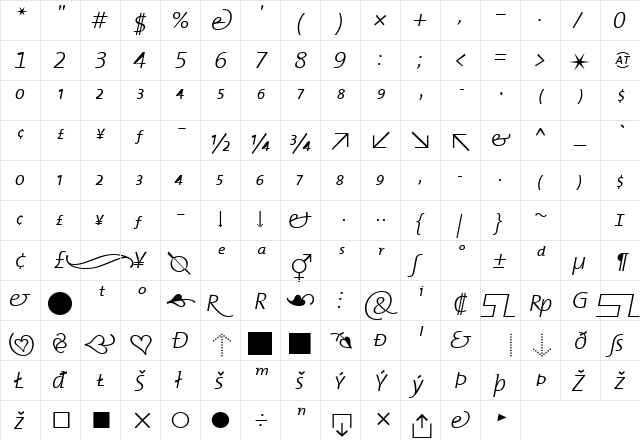
TheMixLight-ExpertItalic Regular Font Preview
Design Context for TheMixLight-ExpertItalic Typeface
TheMixLight-ExpertItalic takes a measured approach to typography — its balanced proportions and neutral character make it a reliable workhorse for both digital and print work. Its italic angle brings a sense of urgency and motion to the letterforms. Its slender proportions lend an understated elegance to any composition.
Pro Tip: Use TheMixLight-ExpertItalic for emphasis, pull quotes, and subheadings where its slanted energy can add rhythm to the layout.